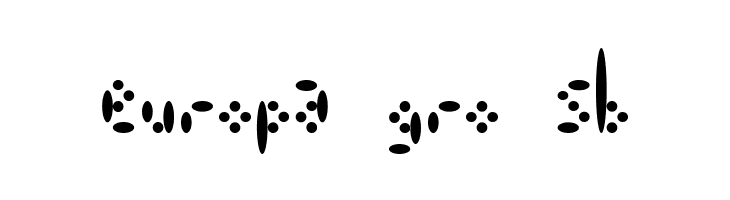
AG Stencil Font
Font by yong Somewhere Else - somewhere-else.info
A bold, geometric stencil font with rounded edges and uniform weight.
Zebra Reg oneonezero Font
Font by yong Somewhere Else - somewhere-else.info
A playful, modern font with continuous, flowing lines and rounded edges.
CaligulaDodgy Font
An elegant serif font with classic, angular serifs and refined strokes.
Josschrift Bold Font
A bold, handwritten font with a casual and dynamic style.
Josschrift Font
A casual, handwritten-style font with smooth, flowing curves and moderate thickness.
Bright Lights Heavy Font
Font by yong Somewhere Else - somewhere-else.info
A playful, bold font with rounded, bubble-like outlines.
BENTO Font
Font by yong Somewhere Else - somewhere-else.info
A bold, decorative font with intricate patterns and 3D shadow effects.
Brands Kidnapped Font
A bold, eclectic font with a ransom note style and distressed textures.
Josschrift Serif Font
A playful, hand-drawn serif font with a whimsical and casual style.
Timnath-BoldItalic Font
Font by
Delcane
A bold, italicized font with classic elegance and dynamic flair.
Timnath-Italic Font
Font by
Delcane
A classic italic font with elegant curves and refined style.
Elsewhere Fill Regular Font
A bold, playful font with rounded edges and a chunky design.
Superstar [Original] Font
memesbruh03 - Aaron D. Chand
A bold, pixelated font with a retro, digital aesthetic.
Elsewhere BRK Font
A bold, rounded font with smooth curves and a playful style.
Else Font
A decorative font with bold ovals and dots forming each character, ideal for artistic projects.
Naz Grunge Font
A grunge-inspired, hand-drawn font with an edgy and artistic style.
Margaretha Font
Font by Jos Elsendoorn
An elegant, classic script font with flowing cursive strokes and intricate detailing.
Somebody Else Font
A playful, handwritten-style font with fluid, looping strokes.
Elsewhere Pattern Regular Font